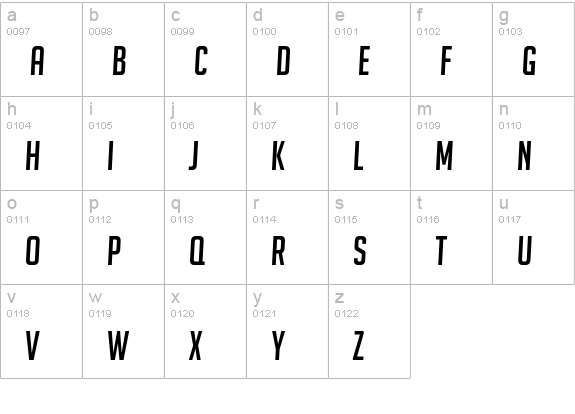
BigNoodleTitling Oblique Font Details
BigNoodleTitling Oblique is a distinctive, italic variant in the BigNoodleTitling typeface family \xE2\x80\x94 well suited to design and typography projects.
BigNoodleTitling Oblique font is a sleek and modern typeface that exudes sophistication and elegance. Its slanted design adds a dynamic and stylish touch to any project, making it perfect for use in headings, titles, and other display purposes. The sharp edges and clean lines of this font give it a contemporary feel that is sure to catch the eye. What makes BigNoodleTitling Oblique font even more appealing is that it is available for free download at FontsMarket.com. This means that you can easily access this high-quality font without any cost, making it a valuable addition to your design toolkit. Whether you are working on a branding project, a poster design, or any other creative endeavor, BigNoodleTitling Oblique font is a versatile choice that will elevate your work to the next level.